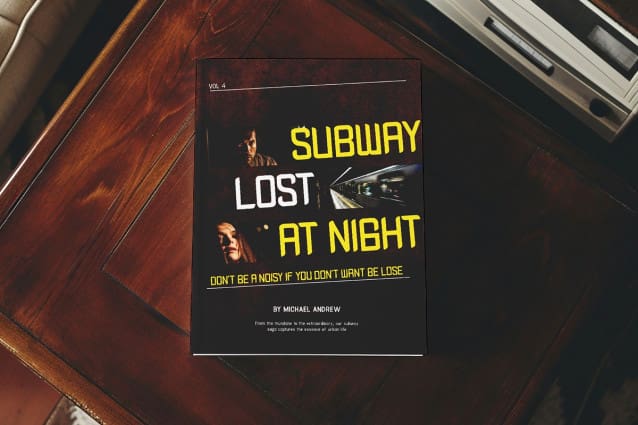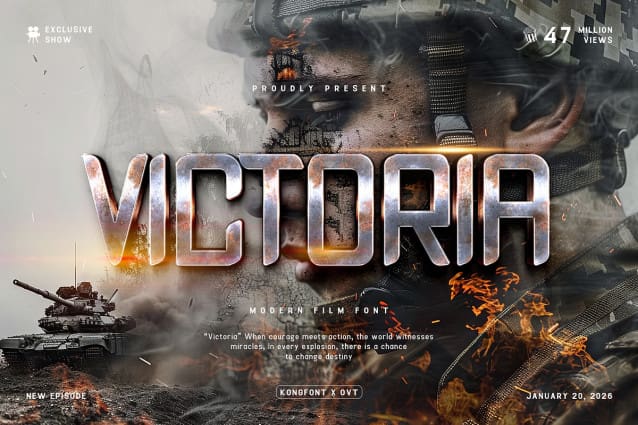
Victoria Font
Victoria Font, a modern film font designed to capture the essence of cinematic excellence. With its sleek lines and bold presence, Victoria adds a touch of drama and sophistication to your designs, perfect for film titles, posters, and promotional materials.
Crafted with precision and style, Victoria Fontembodies the spirit of contemporary filmmaking with its clean and impactful aesthetic. Whether you’re creating movie posters, opening credits, or promotional banners, this font commands attention and sets the stage for cinematic greatness.
Featuring uppercase letters, numbers, and punctuation marks, Victoria Font offers versatility and flexibility for all your film-related projects. Its modern design ensures that your typography stands out on the big screen and beyond, leaving a lasting impression on your audience.
Capture the essence of cinematic excellence with the modern flair of Victoria.